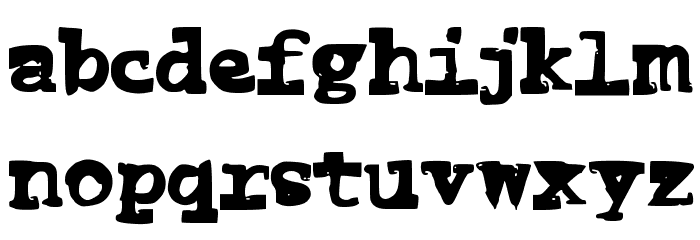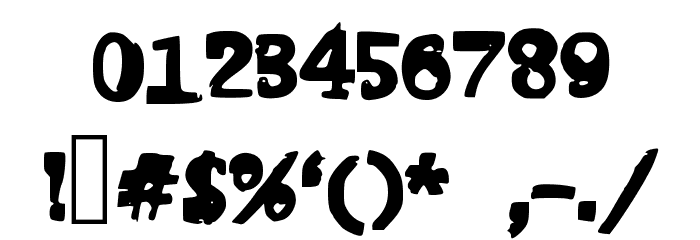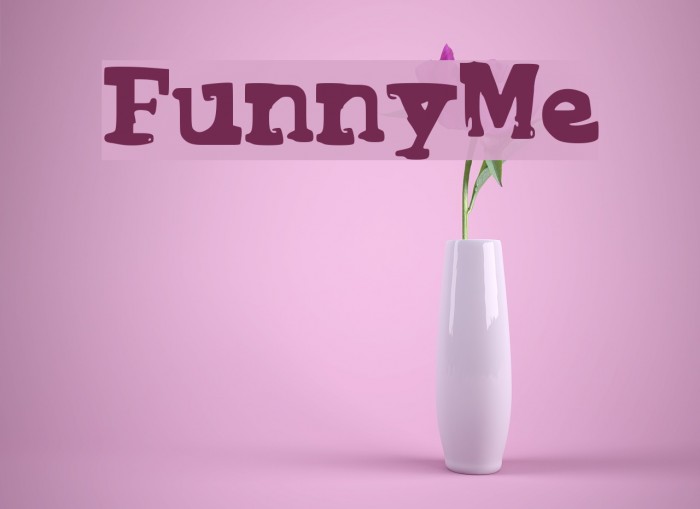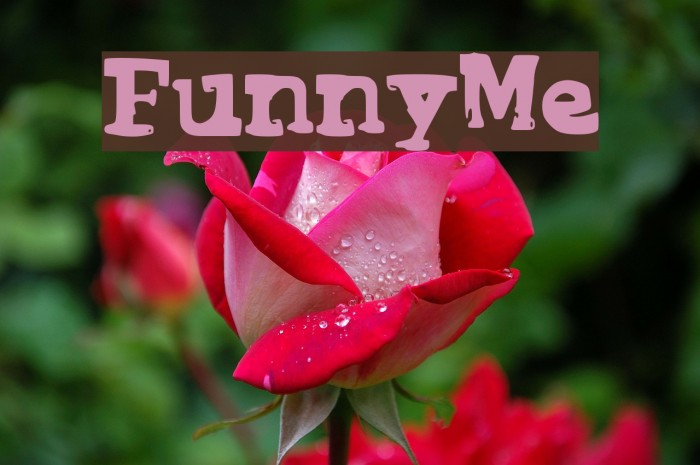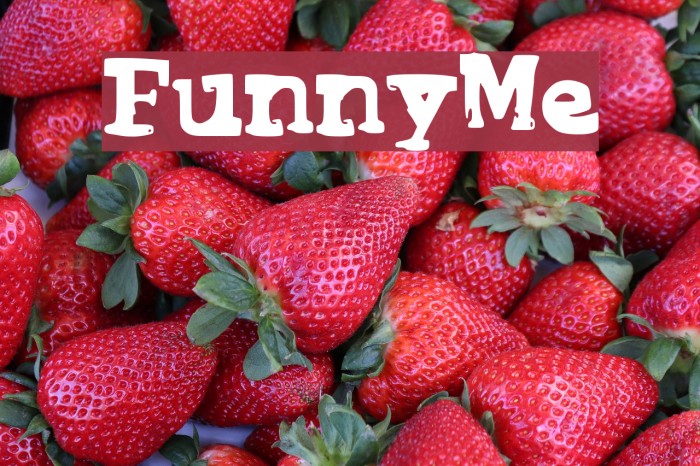
FunnyMe Font
This playful and bold typeface features a whimsical, uneven design that adds a sense of fun and creativity to any project. The characters are thick and display a hand-drawn, cartoonish style with exaggerated serifs and varying stroke widths. The uppercase and lowercase letters maintain a consistent style, while the numbers and special characters complement the overall quirky aesthetic. This font is perfect for projects that require a lively and informal touch, such as children's books, comic strips, or playful branding.
A bold, whimsical typeface with a playful, hand-drawn style.
- Proposed Projects: Ideal for children's books, comic strips, playful branding, and creative posters.
- Overall Style: Playful, Whimsical, Cartoonish